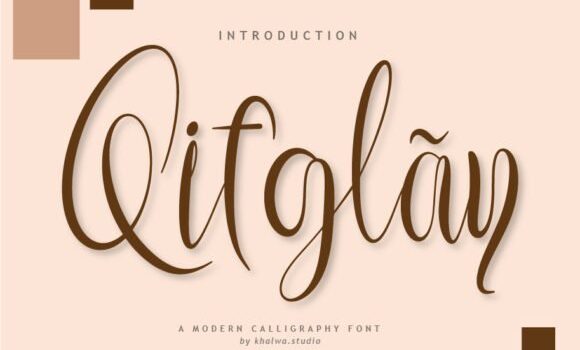
qifglay
Qifglay Font – Free Download Introduction to Qifglay Font Qifglay Script is a lovely and timeless handwritten font. 📸 Preview Gallery 4 images 📌 Product Name Qifglay Font 👤 Author khalwa.studio 📂 Category Explore ⬇️ Download Qifglay Font FREE Free